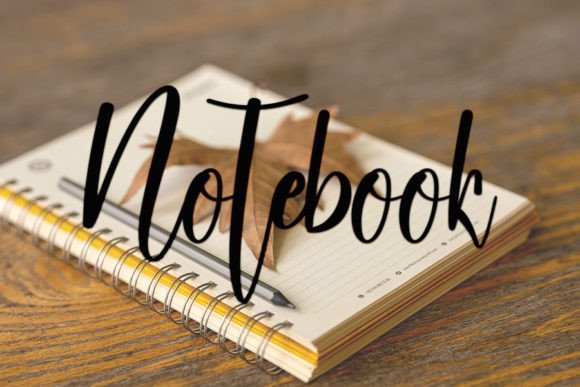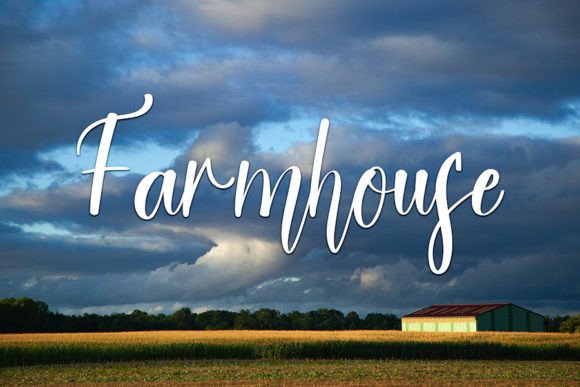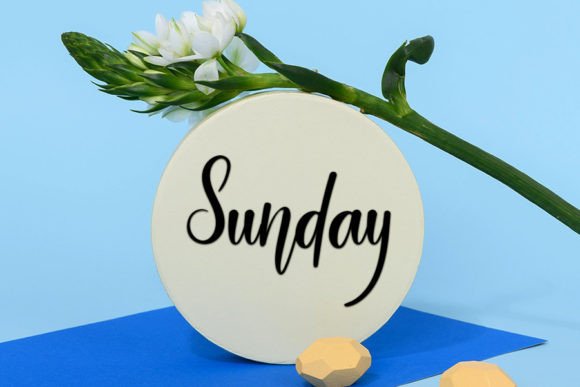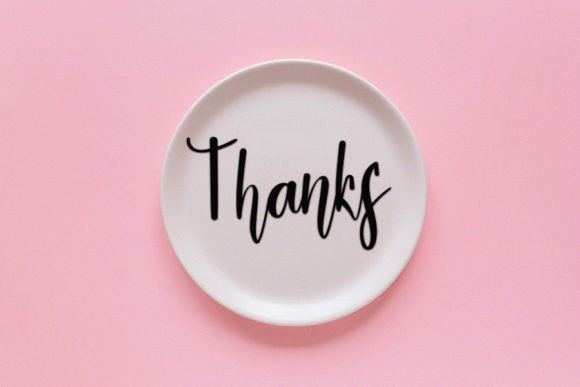
Discover the Beauty of Handwritten Fonts: Elevate Your Designs with Elegance
Are you looking for a font that adds a personal touch to your designs? Do you want to create a lasting impression on your audience? Look no further than handwritten fonts! Among the numerous options available, one font stands out for its exceptional elegance and timeless style: Handwritten. In this article, we’ll explore the world of handwritten fonts, with a special focus on this beautiful font that’s sure to capture your heart.
The Power of Handwritten Fonts
Handwritten fonts have a unique ability to add a human touch to your designs. They evoke emotions, convey personality, and create a sense of connection with your audience. Unlike generic fonts, handwritten fonts are inherently personal and distinctive, making them perfect for projects that require a touch of elegance and sophistication.
Introducing Handwritten: A Neat and Beautiful Font
Handwritten is a stunning font that embodies the essence of elegance and refinement. Described as a neat and beautiful handwritten font, it’s characterized by an elegant touch that sets it apart from other fonts. Its incredibly distinct and timeless style makes it perfect for a wide range of projects, from creative designs to commercial applications.
What Makes Handwritten So Special?
So, what makes Handwritten so special? Here are just a few reasons why designers and crafters love this font:
- Elegant Touch: Handwritten boasts an undeniable elegance that adds a touch of sophistication to any design.
- Timeless Style: Its classic style ensures that your designs will remain relevant for years to come, without looking dated or trendy.
- Distinctive Character: Handwritten’s unique character set makes it perfect for creating memorable designs that stand out from the crowd.
- Versatility: This font is suitable for a wide range of projects, from digital designs to print materials, and even handmade crafts.
Use Handwritten for Spectacular Designs
With Handwritten, the possibilities are endless! Here are some ideas to get you started:
- Logos and Branding: Create a lasting impression with a custom logo or branding materials that showcase your unique personality.
- Digital Designs: Add a touch of elegance to your social media graphics, blog posts, and website designs.
- Print Materials: Use Handwritten for business cards, brochures, and flyers that require a professional yet personal touch.
- Handmade Crafts: Add a personal touch to your handmade crafts, such as journals, cards, and gift tags.
Tips for Using Handwritten Fonts Effectively
To get the most out of Handwritten, here are some tips to keep in mind:
- Pair with Other Fonts: Combine Handwritten with other fonts to create a unique and visually appealing design.
- Experiment with Colors: Try out different color schemes to find the perfect match for your design.
- Pay Attention to Spacing: Make sure to adjust the spacing between letters and words to ensure a clean and readable design.
In conclusion, Handwritten is a beautiful and elegant font that’s perfect for designers and crafters looking to add a personal touch to their projects. With its timeless style, distinctive character, and versatility, it’s an excellent choice for a wide range of applications. Whether you’re creating digital designs, print materials, or handmade crafts, Handwritten is sure to elevate your designs and leave a lasting impression on your audience.
So, fall in love with Handwritten’s incredibly distinct and timeless style, and use it to create spectacular designs that showcase your unique personality and creativity!